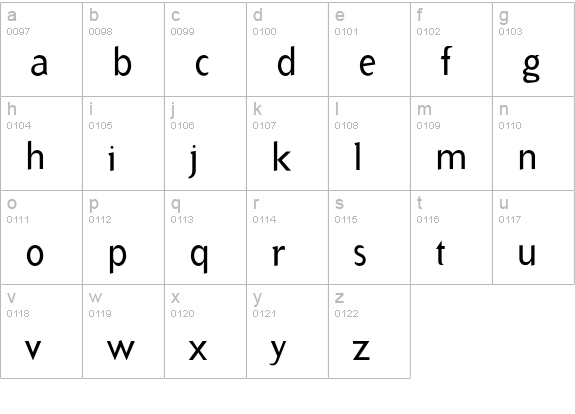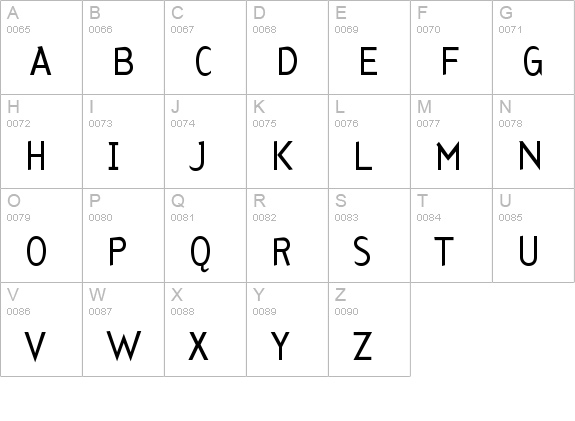
ArbPercent Font Details
ArbPercent font is a versatile and modern typeface that is perfect for a wide range of design projects. With its clean lines and stylish appearance, ArbPercent font is sure to make your text stand out. Whether you are working on a website, a poster, a logo, or any other design, this font is a great choice. The best part about ArbPercent font is that it is available for free! You can download it easily at FontsMarket.com. This means that you can use this high-quality font in your projects without any cost, making it a fantastic option for both personal and commercial use. Don't miss out on this amazing opportunity to enhance your designs with the ArbPercent font. Download it now and start creating beautiful typography today!